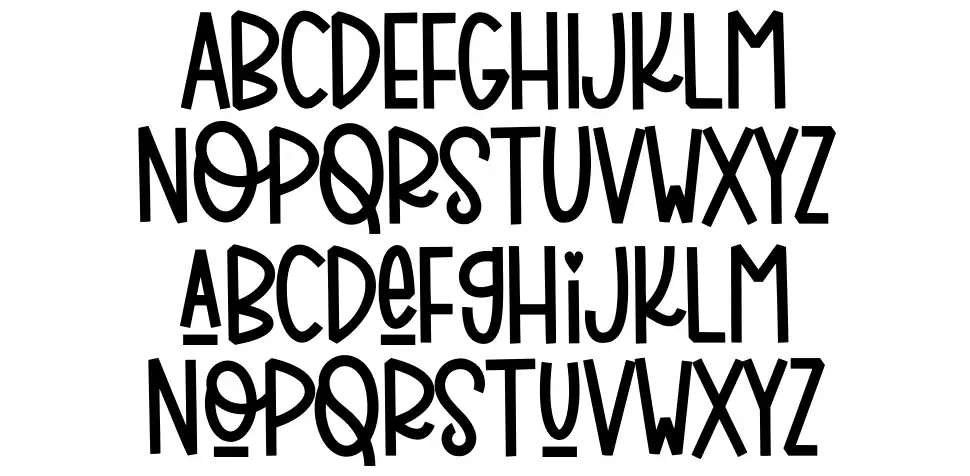
Holiday Planner Font . Planner holiday, designed by belina studio, is a charmingly handwritten font that adds a playful touch to any project. Download the latest planner holiday font for windows, mac, & linux exclusively at font canyon. Holiday planner font download is available free from fontget. Holiday planner is a fancy type font that can be used on any device such as pc,.
Planner holiday, designed by belina studio, is a charmingly handwritten font that adds a playful touch to any project. Holiday planner is a fancy type font that can be used on any device such as pc,. Download the latest planner holiday font for windows, mac, & linux exclusively at font canyon. Holiday planner font download is available free from fontget.